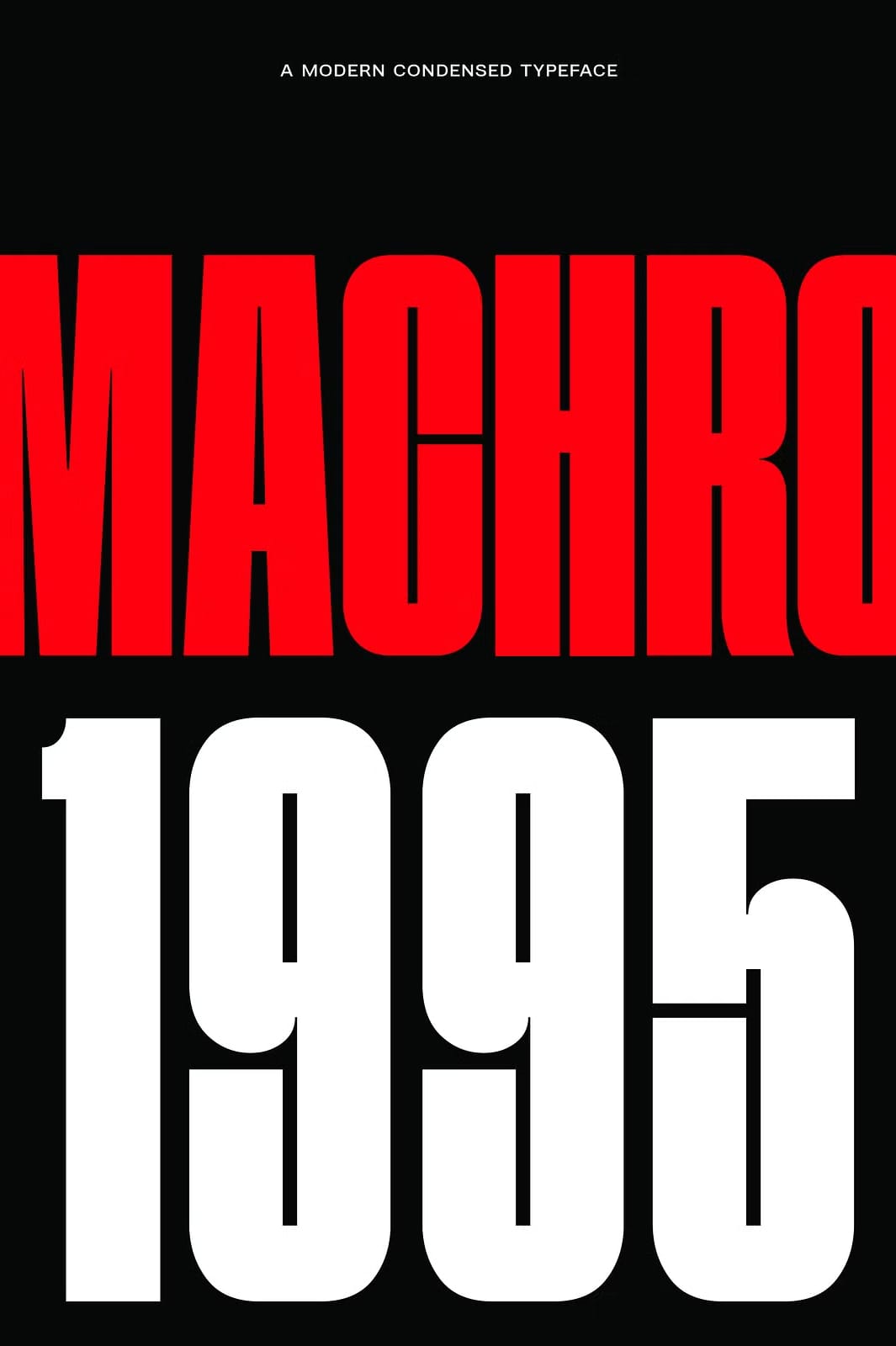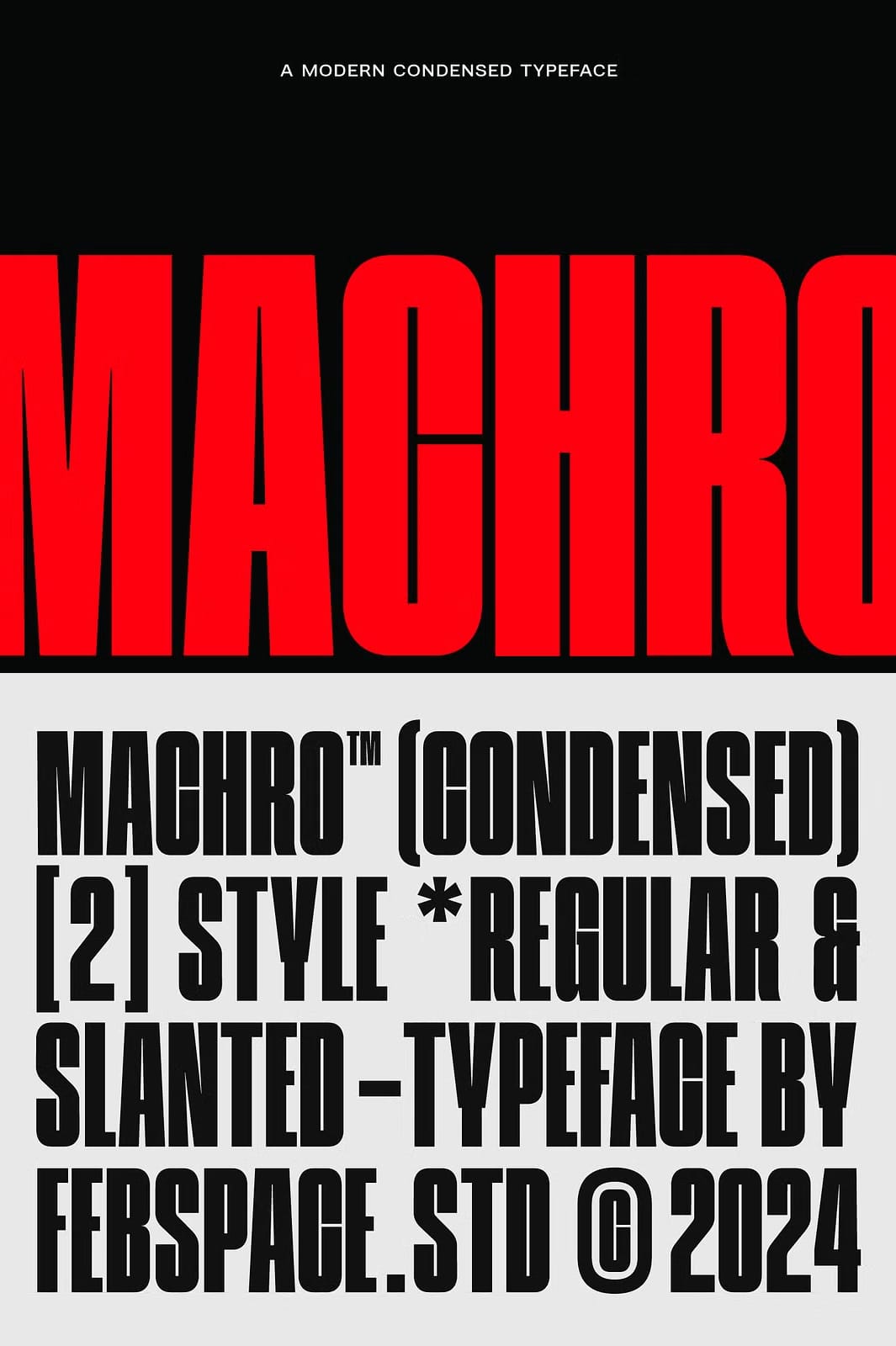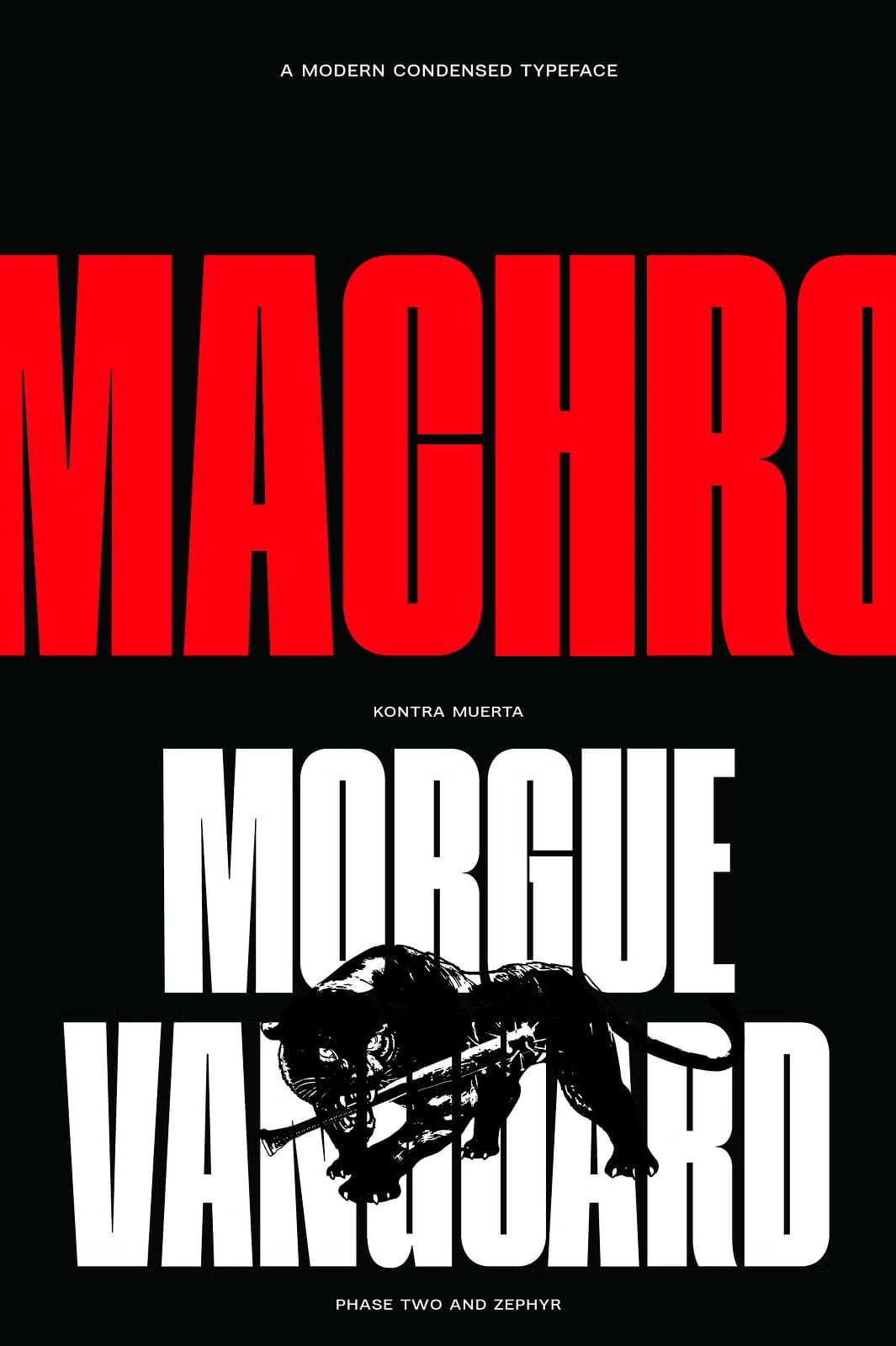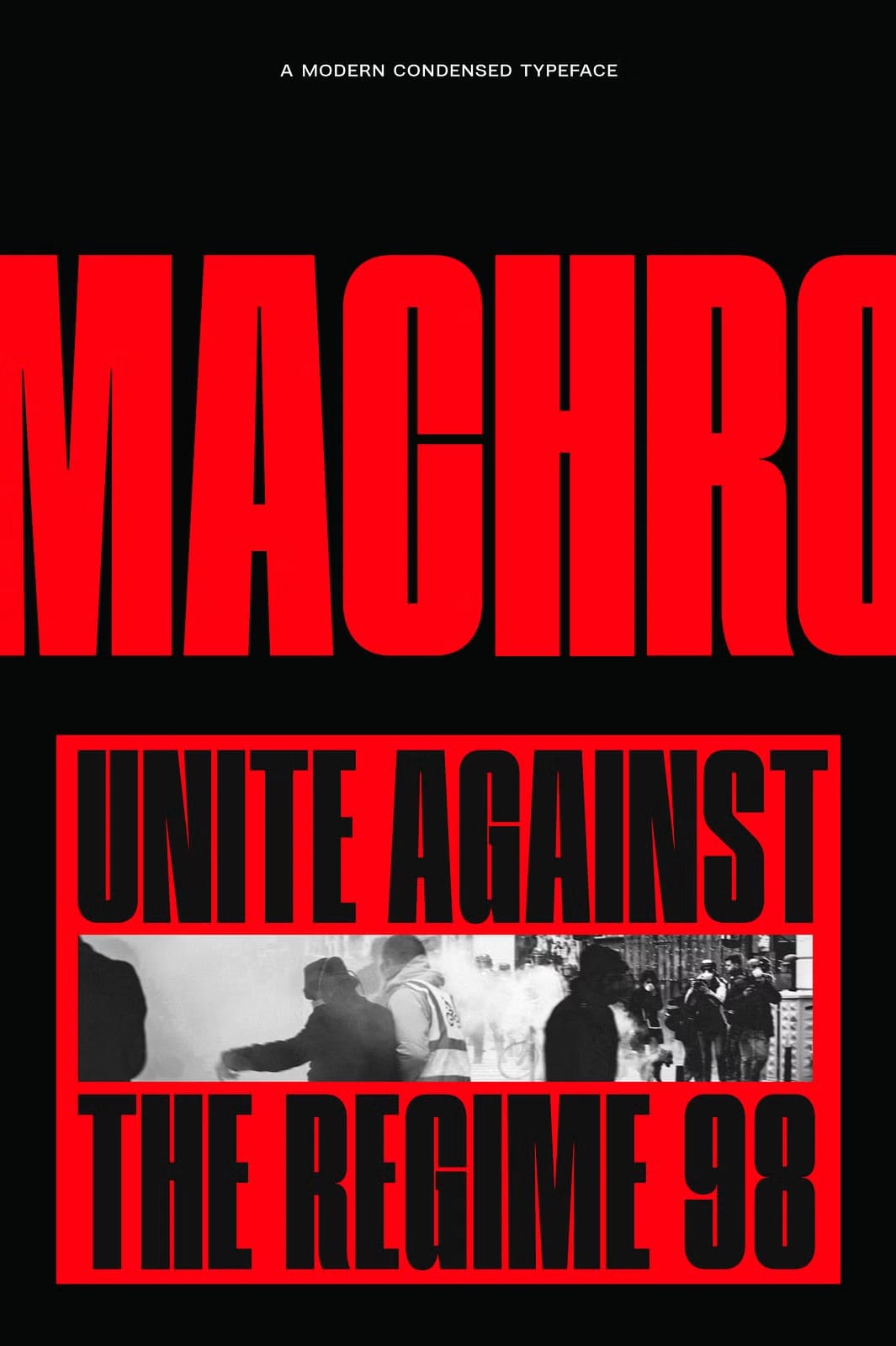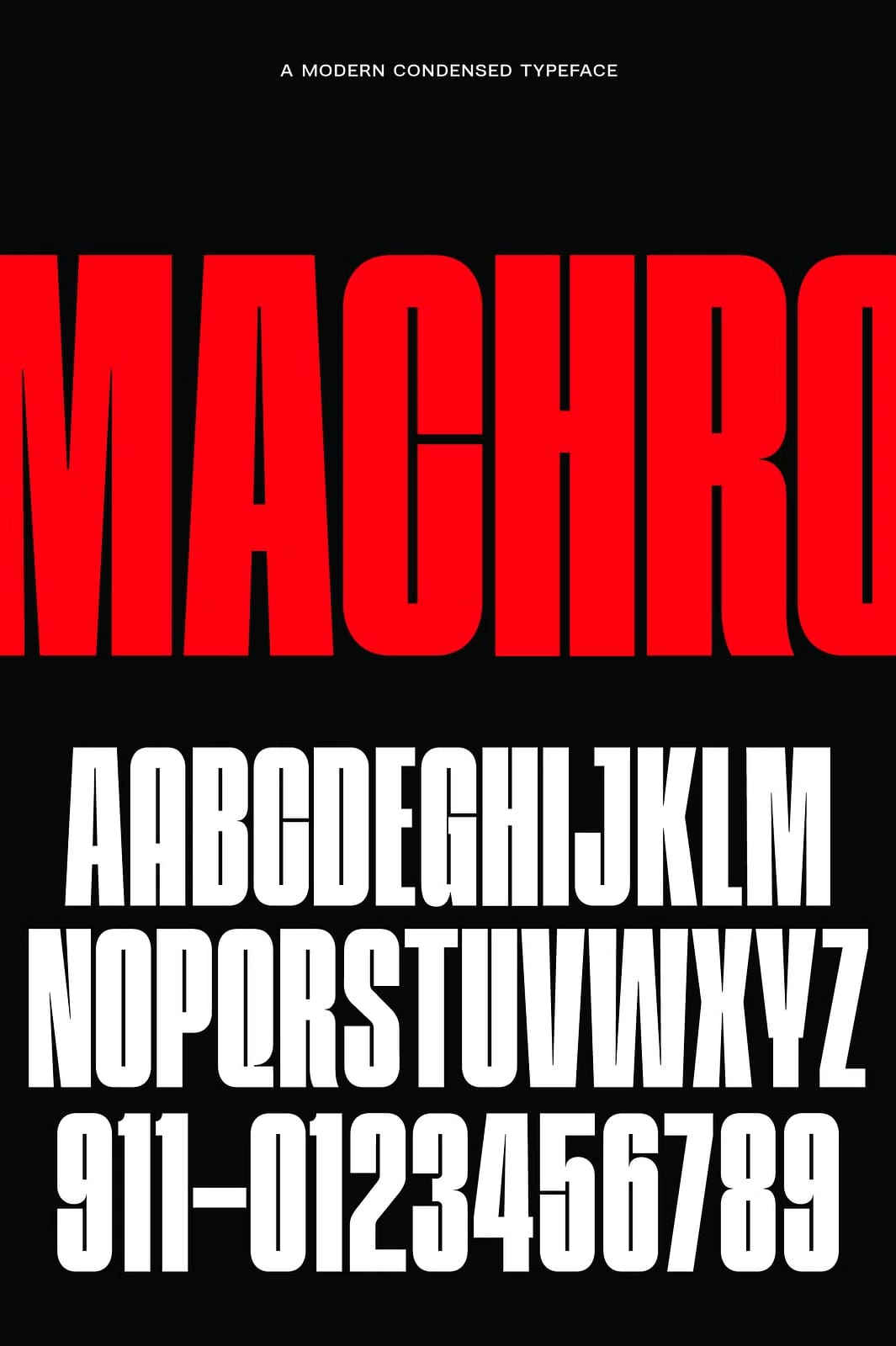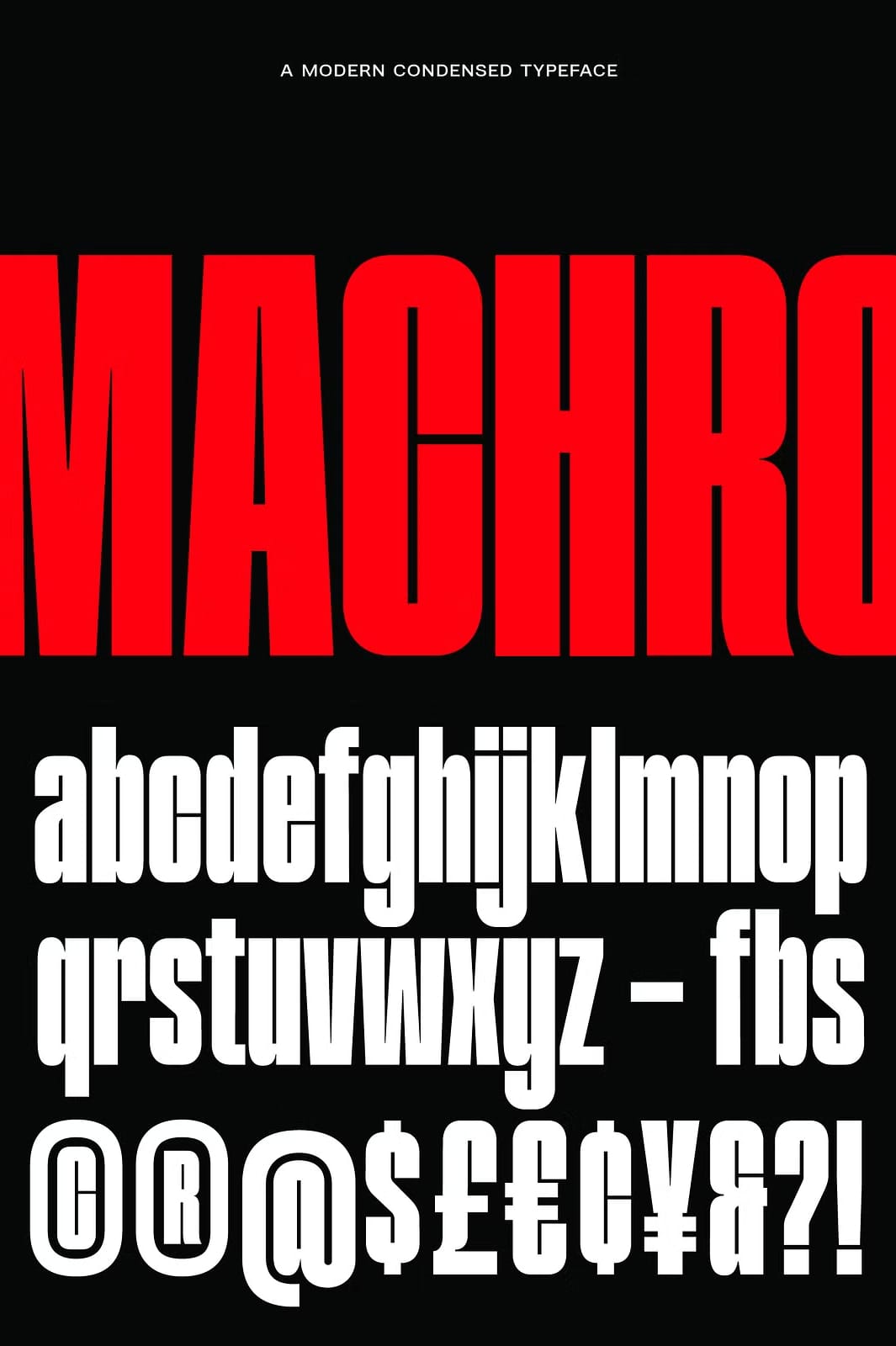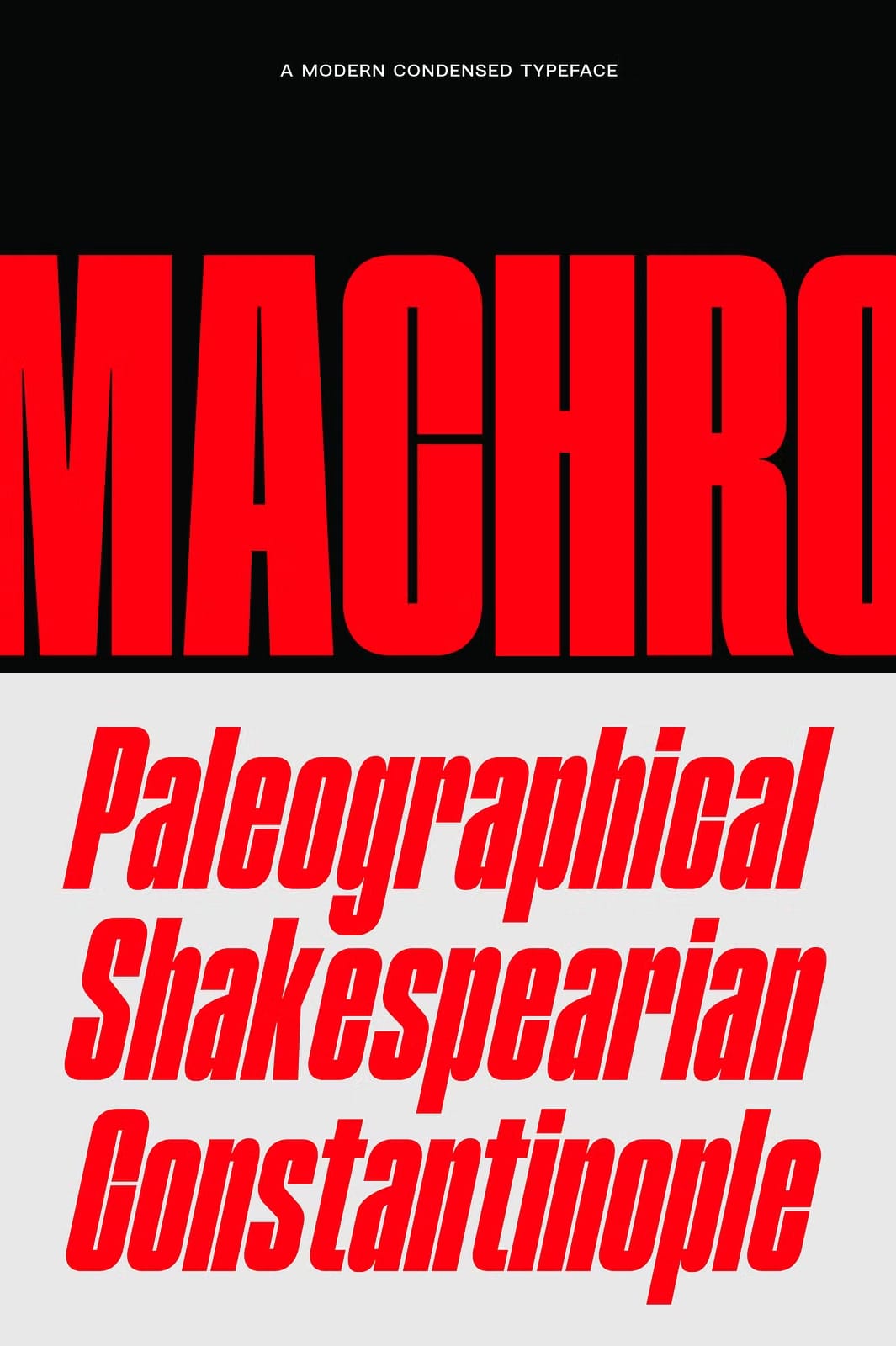
Discover the striking impact of the FBS Machro Condensed font family, a modern typeface designed to emphasize strength and energy in every letterform. This condensed font offers an ideal blend of boldness and clarity, allowing designers to highlight key design elements with confidence and flair. Whether your project is in print or digital media, the sharp, narrow proportions and clean details of FBS Machro Condensed bring a contemporary vibe that captures attention immediately.
Versatile Styles for Powerful Design Expression
The FBS Machro Condensed family includes two distinctive styles: Regular and Slanted. The Regular style excels in delivering clear, impactful headlines and body text, making it an excellent choice for projects demanding strong readability. On the other hand, the Slanted style injects a dynamic, energetic flair into your typography, perfect for grabbing attention and adding character to your compositions. This versatility allows you to seamlessly switch between authoritative and lively tones within the same design language.
Designed for Clear Legibility and Contemporary Elegance
With its narrow and tight letterforms, FBS Machro Condensed maximizes space without sacrificing legibility. This meticulous design ensures that even at smaller sizes, your content remains crystal clear and easy to read. At the same time, the font’s modern aesthetic infuses any project with a sleek elegance, balancing functional clarity with contemporary sophistication. Use it to create captivating branding, eye-catching posters, or sleek advertising materials that communicate professionalism and style.
Perfect Font for Branding and Marketing Projects
FBS Machro Condensed is an ideal choice for various graphic design applications, from logos and packaging to editorial layouts and web banners. Its bold presence ensures that your message stands out in competitive markets, while the condensed style helps maintain streamlined, uncluttered aesthetics. Designers and marketers alike find this font invaluable for crafting professional visuals that convey confidence and appeal directly to target audiences.
Seamless Integration Across Print and Digital Media
This typeface adapts smoothly across multiple media types, ensuring your visuals retain their impact whether on a printed poster, digital advertisement, or responsive web interface. The font’s clarity and dynamic styling translate well across devices and formats, allowing you to maintain a consistent and polished brand identity no matter where your content appears.